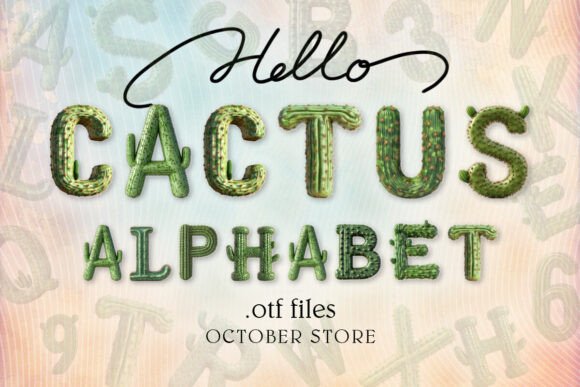
Introducing the Cactus Alphabet Font: A Wildly Beautiful Typeface
Imagine you’re working on a design project, and you’re struggling to find the perfect font that captures the essence of the desert landscape. The client wants something unique, something that reflects the rustic charm of the wild, yet is modern and captivating. That’s when I discovered the Cactus Alphabet Font, and it was love at first sight! 💕
A Personal Design Moment: Finding the Perfect Font
I was working on a branding project for a desert-inspired boutique, and I needed a font that would evoke the spirit of the wild west. I scoured the internet, tried countless fonts, but nothing seemed quite right. That was until I stumbled upon the Cactus Alphabet Font. Its unique blend of rustic and modern elements instantly caught my eye, and I knew I had found the perfect fit.
- ✨ Unique and captivating design that seamlessly blends rustic and modern elements
- 🌿 The green cactus essence is beautifully incorporated into the typography, making it a standout
- 💬 It’s a conversation starter, perfect for designers and crafters looking to add a touch of personality to their work
- 🤔 As a color font (Opentype-SVG), it may require some extra setup in certain design software
The Designer Inspiration Behind the Cactus Alphabet Font
The Cactus Alphabet Font was inspired by the unique beauty of the desert landscape. The designer, who is passionate about typography and nature, wanted to create a font that would capture the essence of the wild west. By combining rustic and modern elements, they created a truly unique and captivating typeface.
| What type of font is the Cactus Alphabet Font? | The Cactus Alphabet Font is a color font (Opentype-SVG) that seamlessly blends rustic and modern elements. |